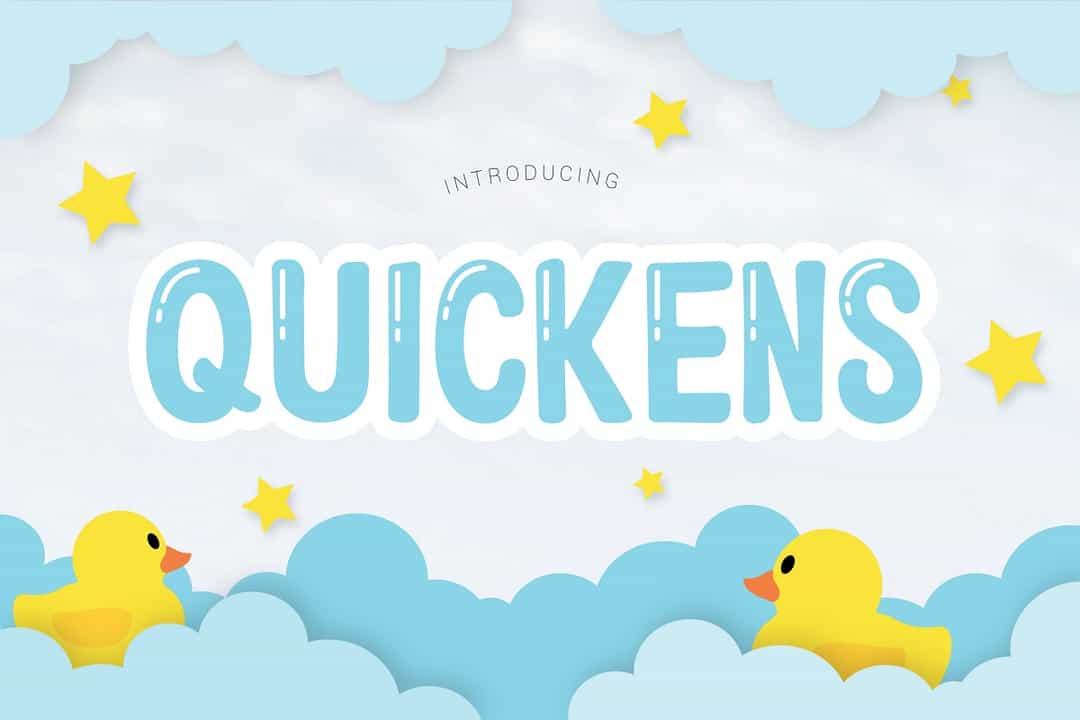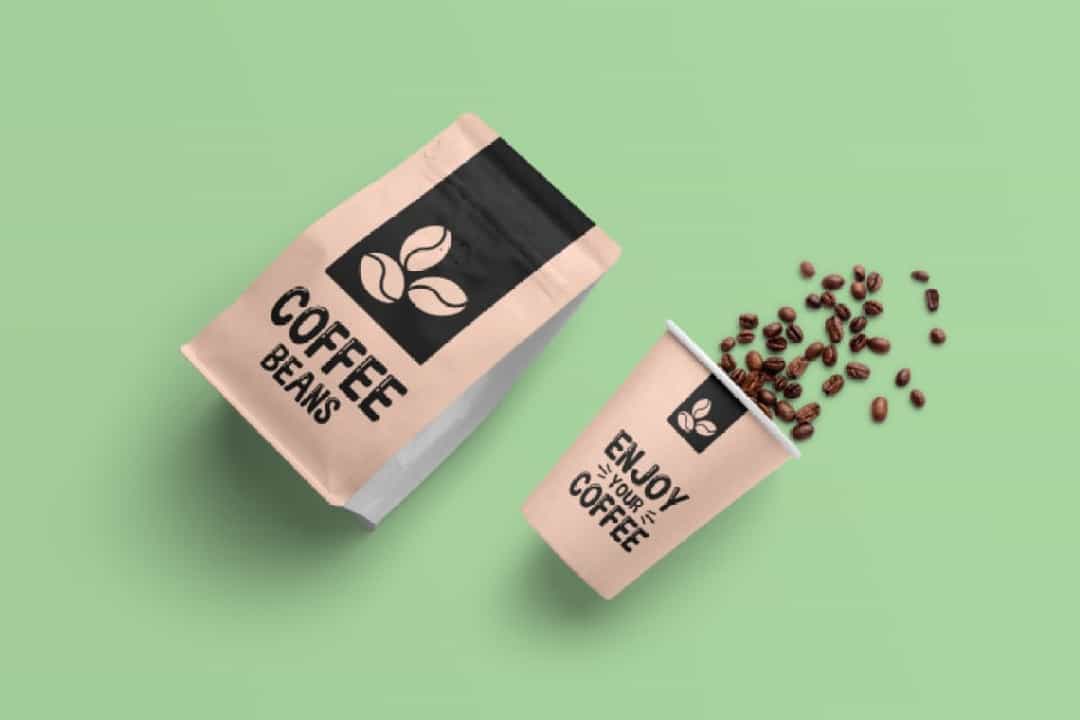
Quickens is an adorable Display Font with playful nature that makes it ideal for creative work ranging from wall art and corporate identity ads, to branding projects, logo design, clothing branding packaging design magazines headers for magazines or even as trendy text overlays for all background pictures.